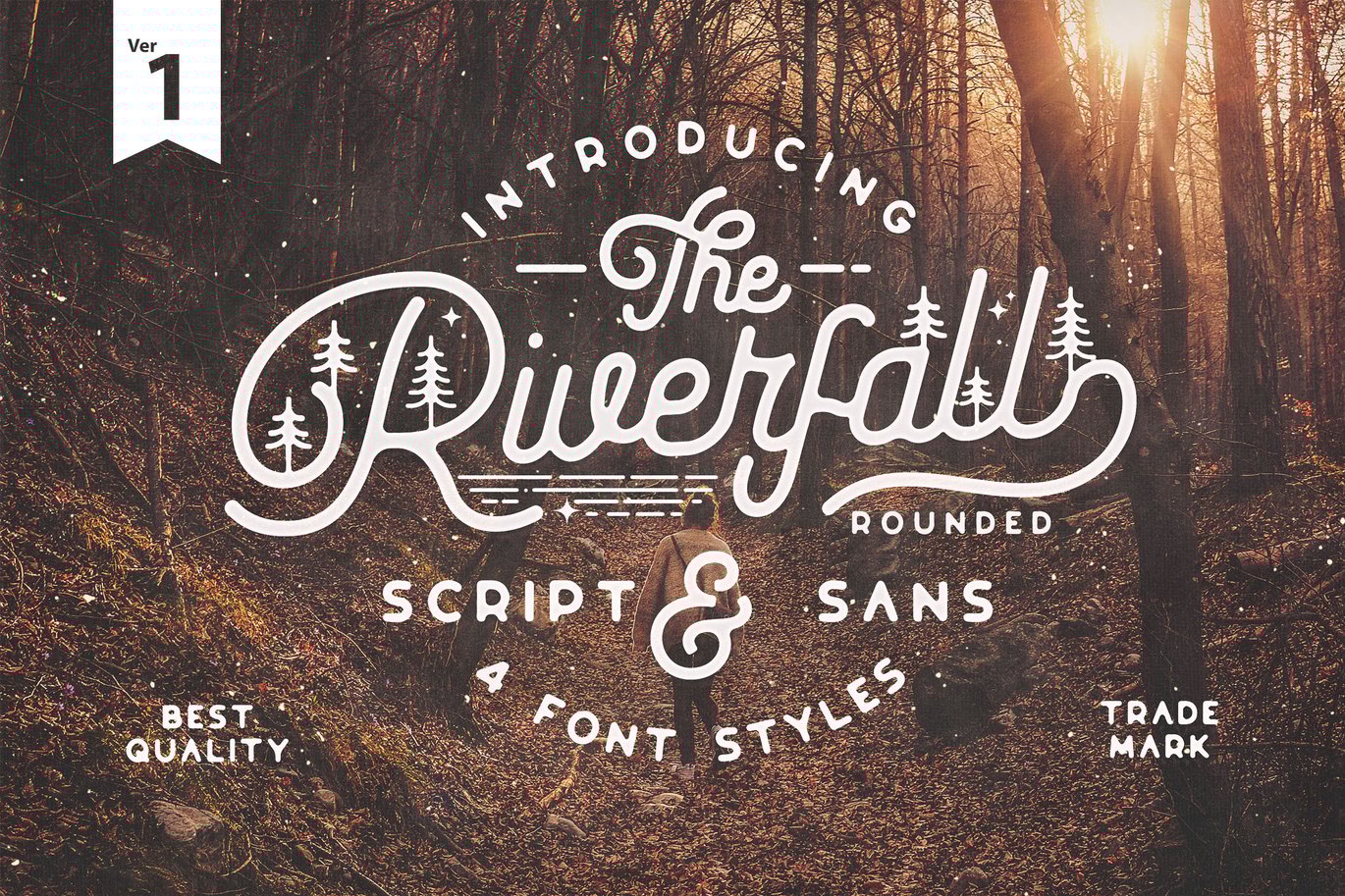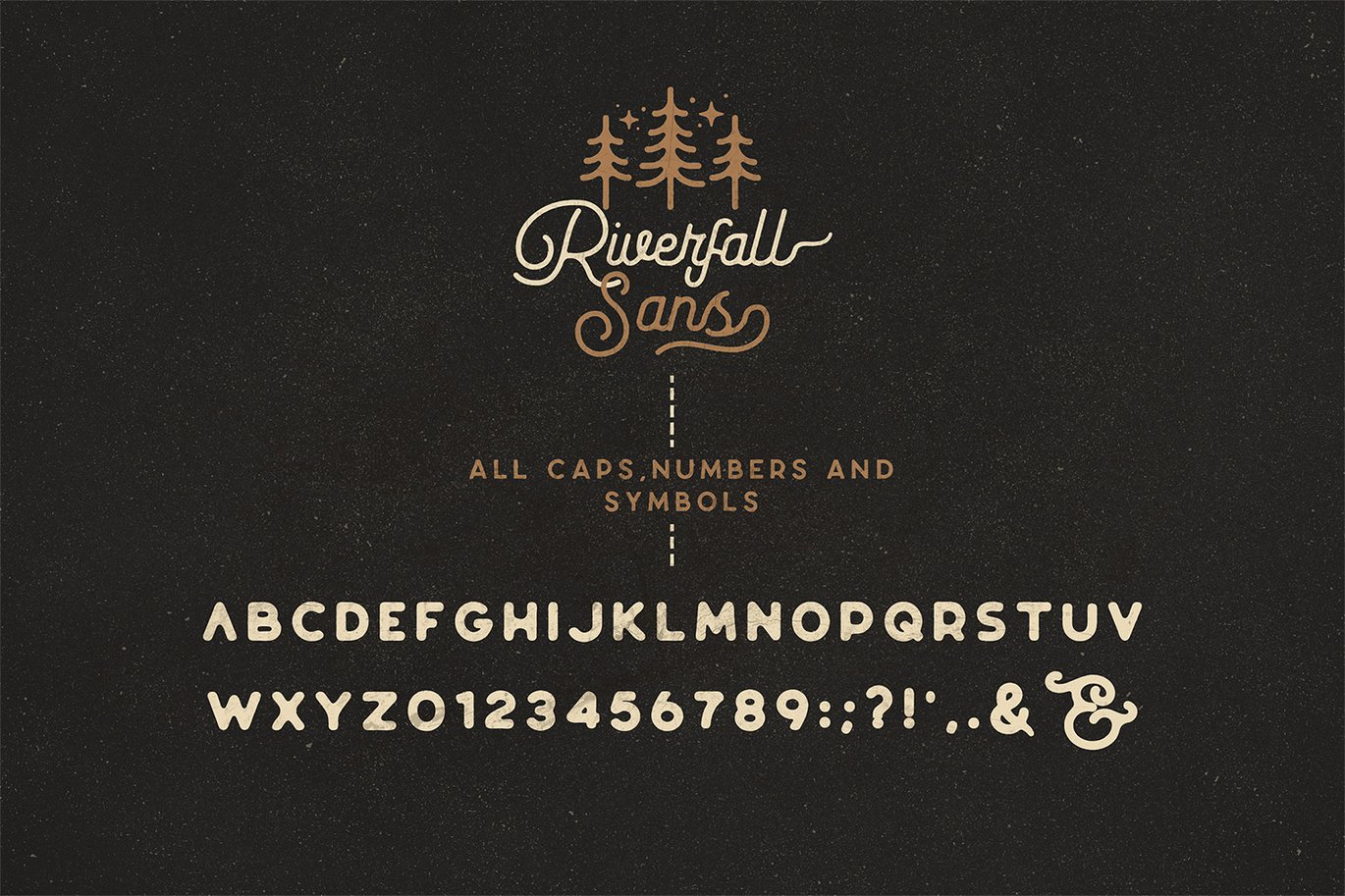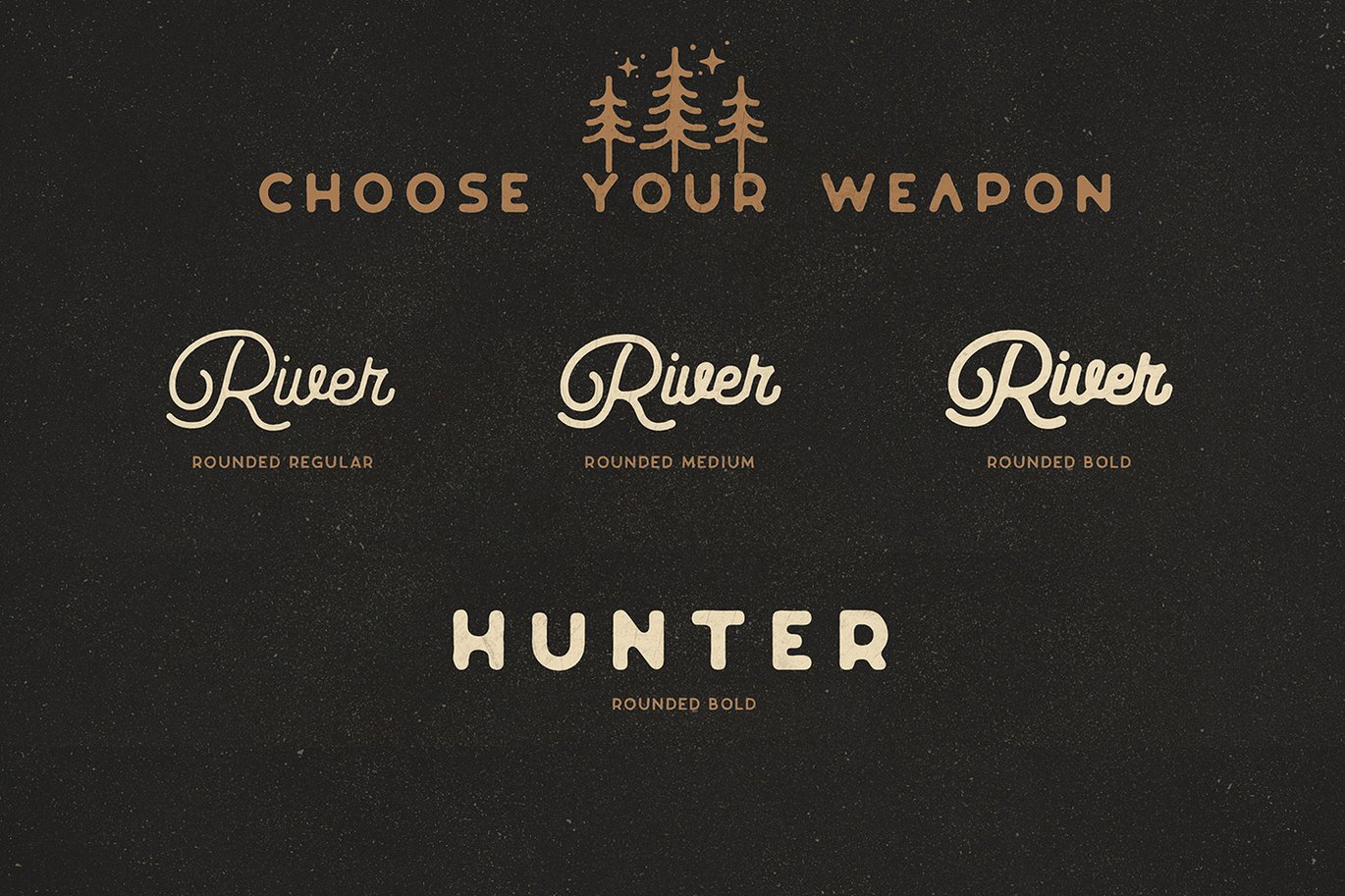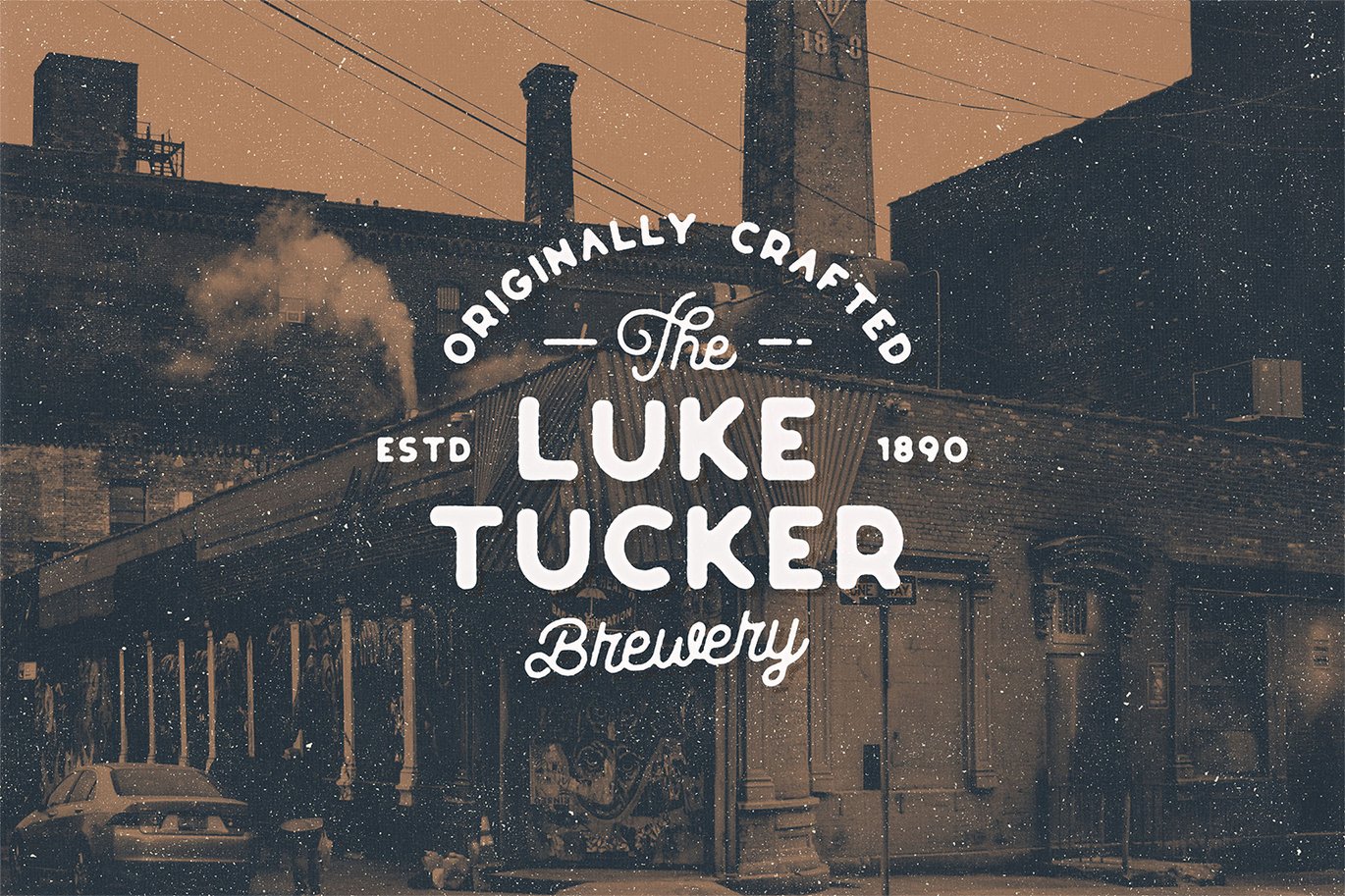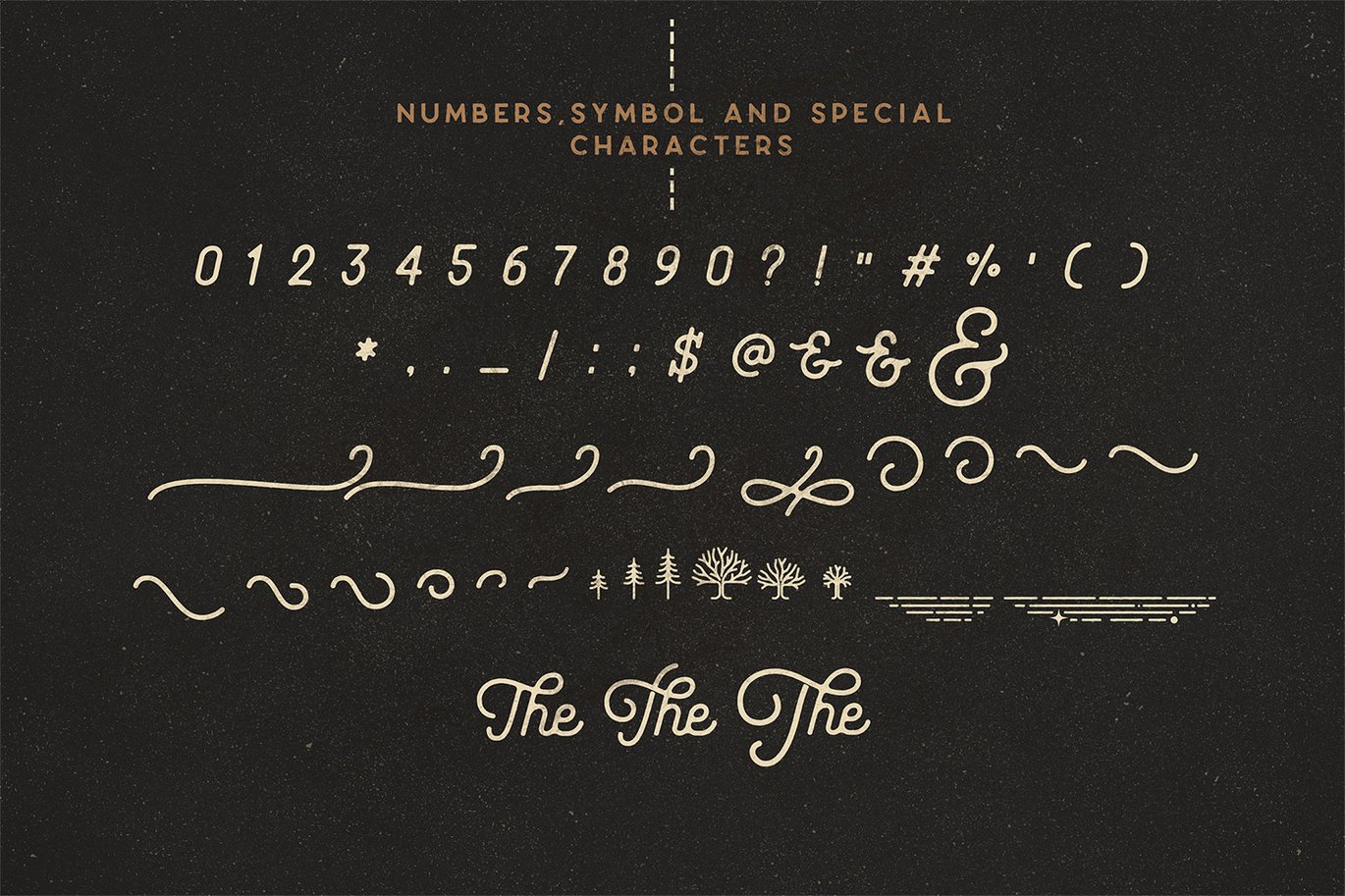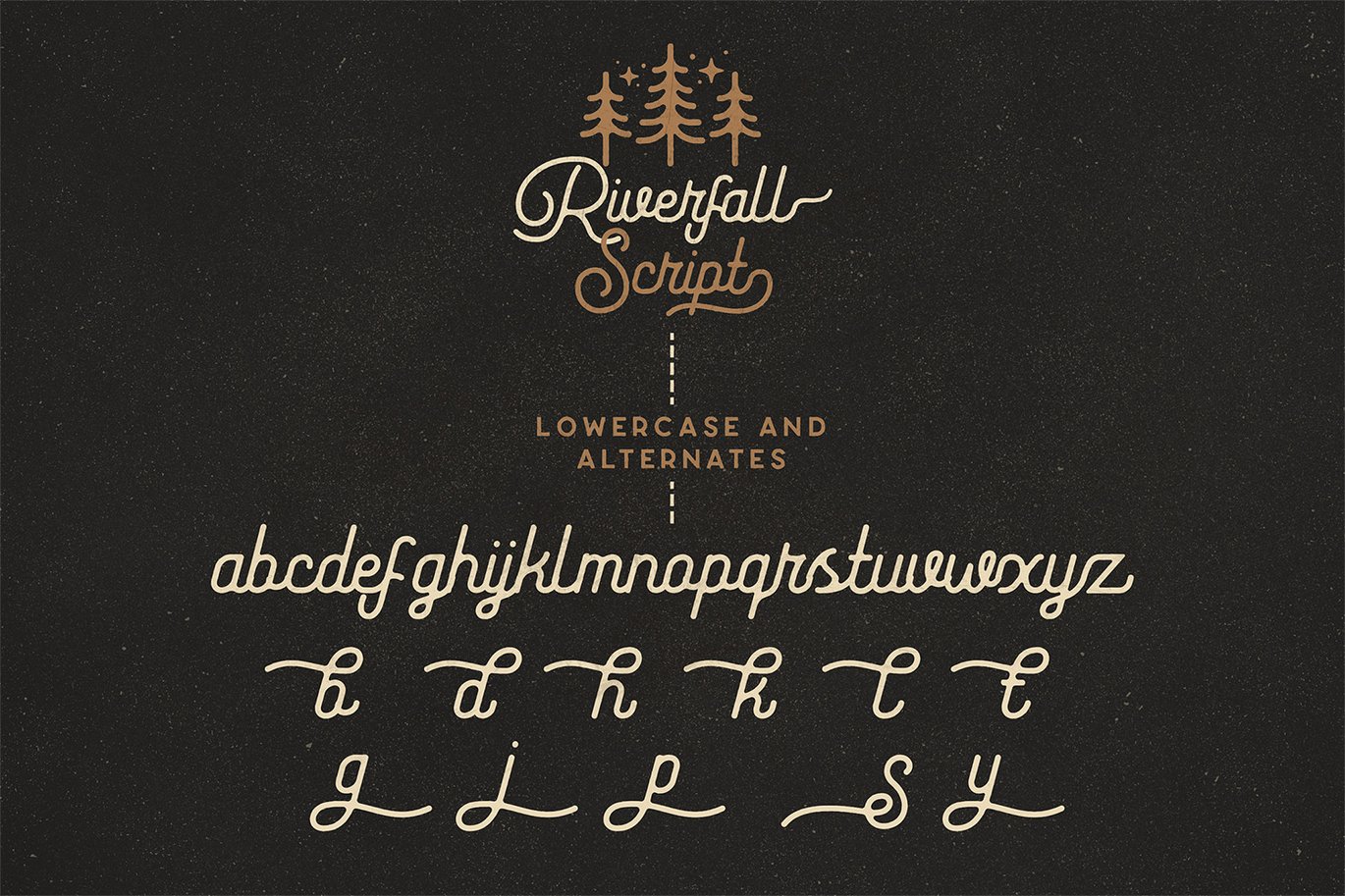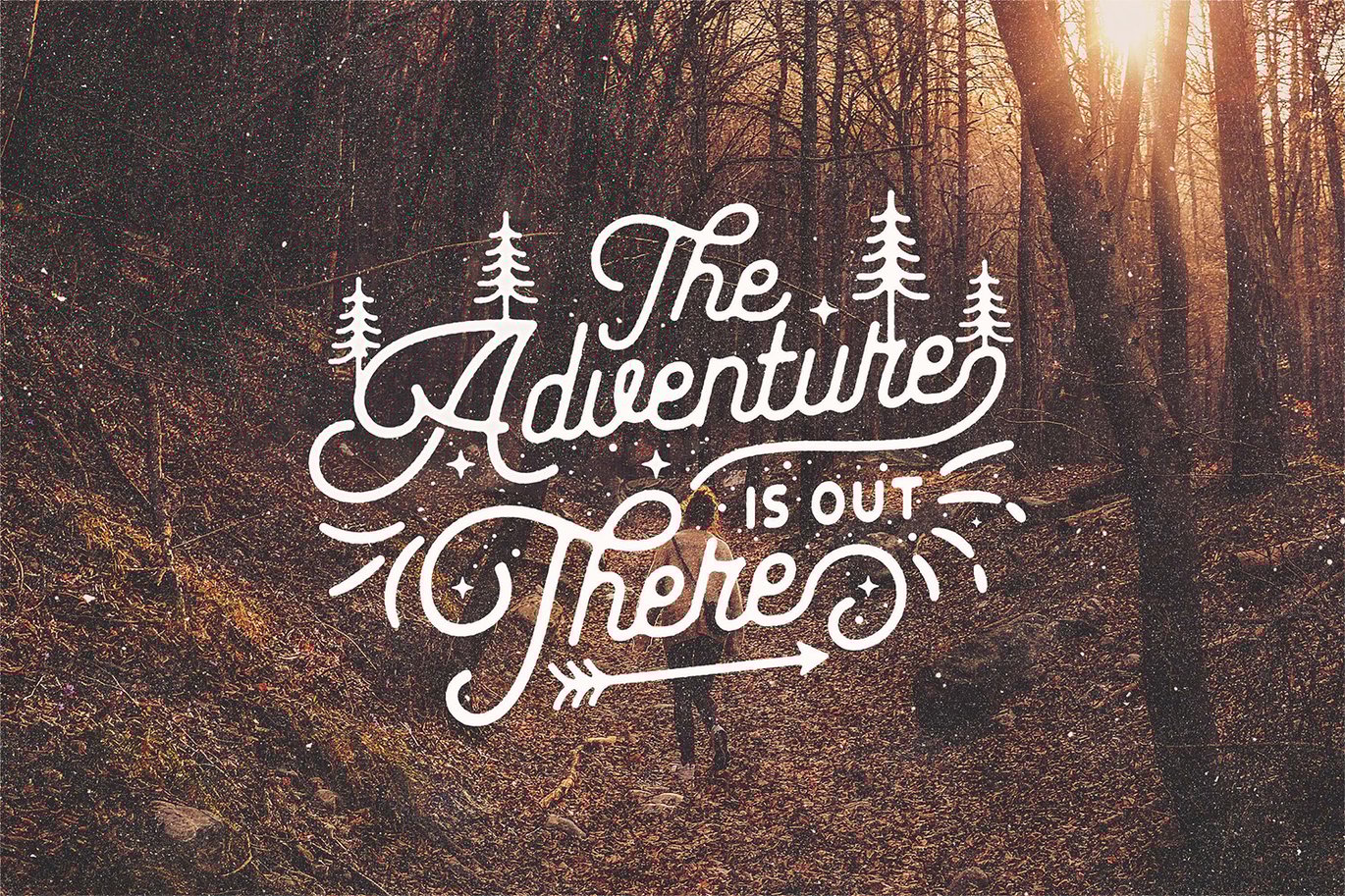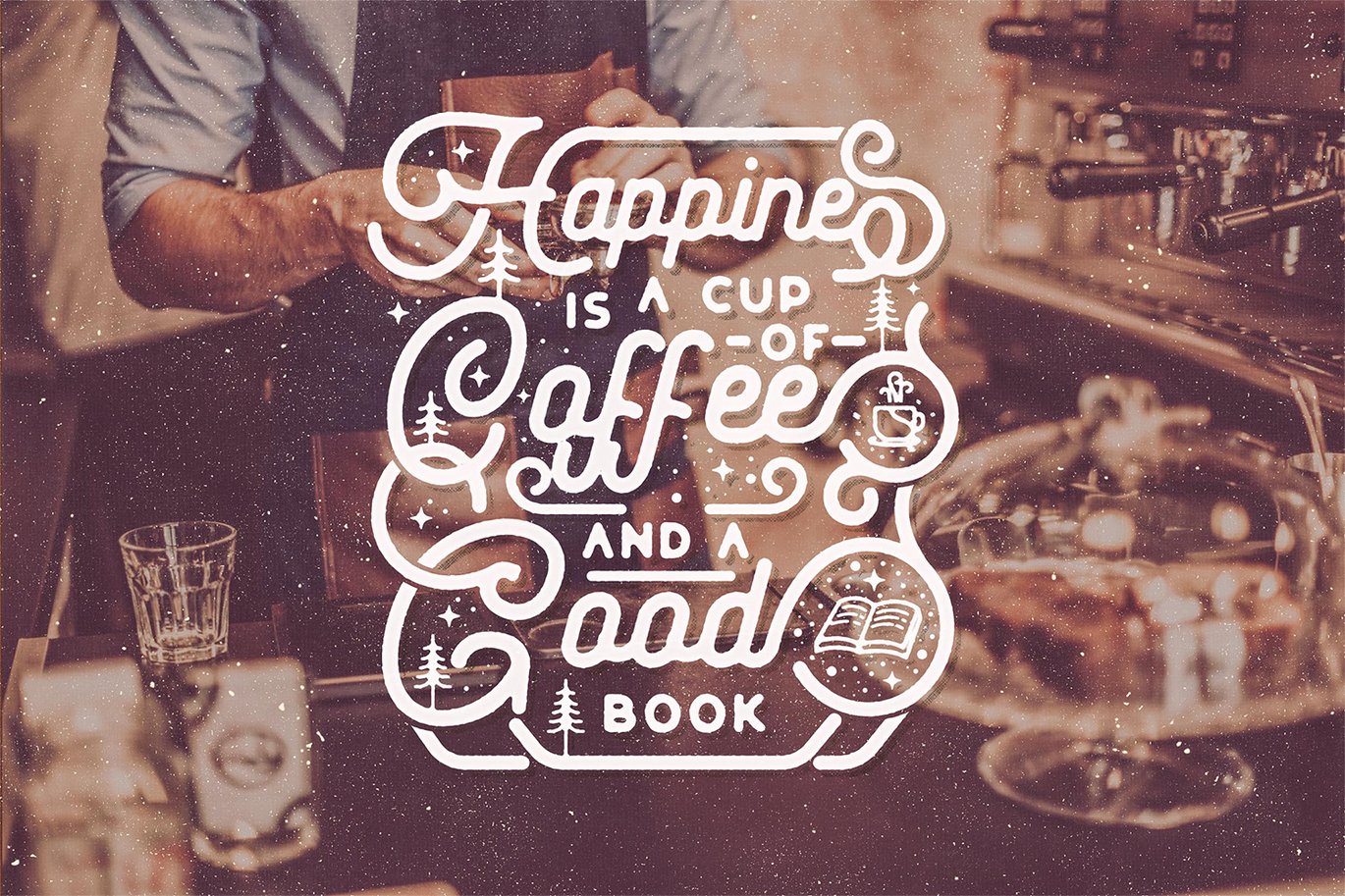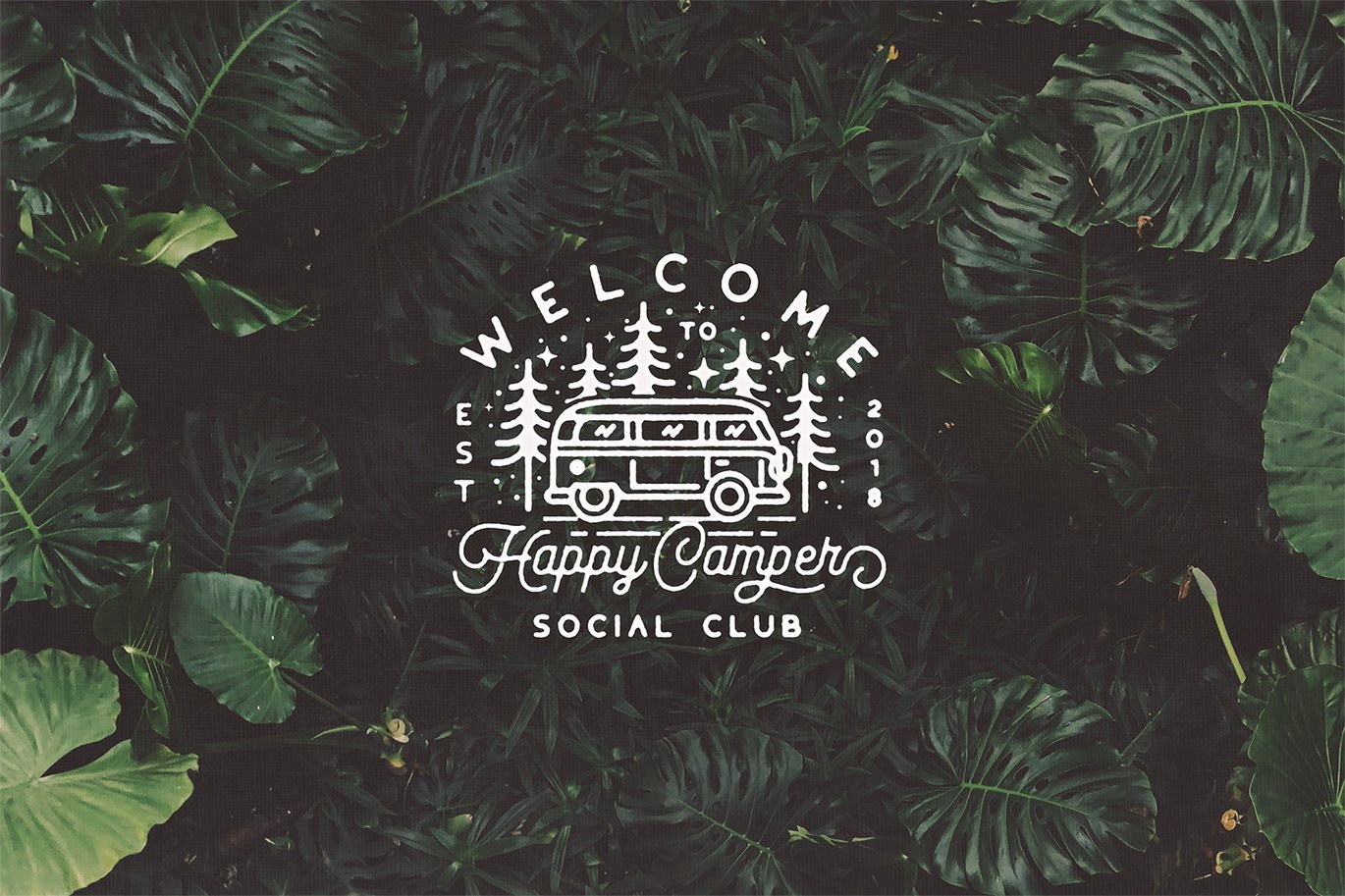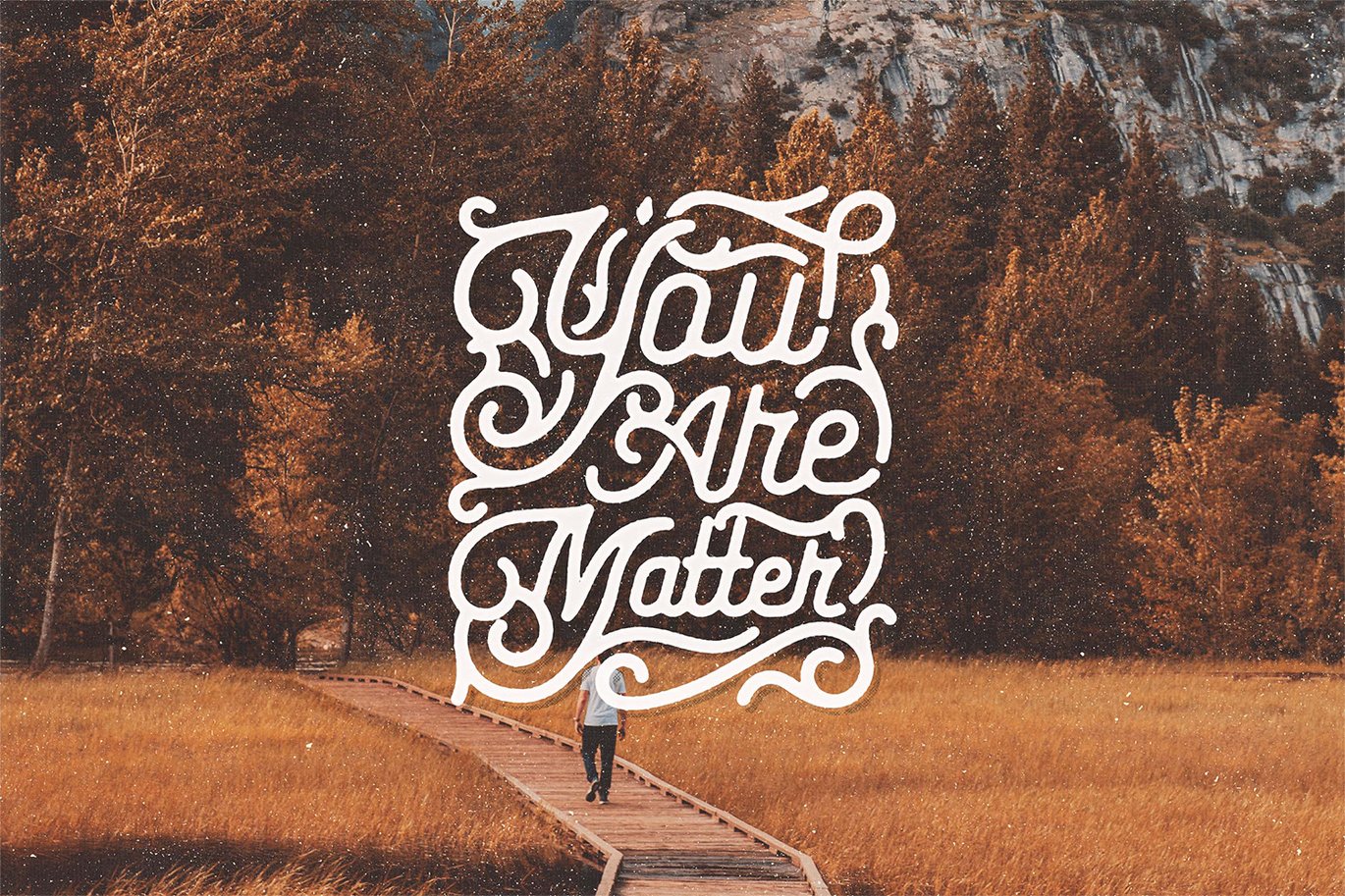
Riverfall Rounded Script and Sans 4 Typeface Ver.1
The Riverfall Rounded is vintage soft Script and sans serif font with 4 with 2 different style ‘script and sans. Also with beautiful alternates, Swashes. Perfect fair of sans and script font for retro vintage styles. Made carefully to create perfect suitable for each of your projects, great for Logotype, Branding Design, Logo Design, Digital Lettering Arts, T-Shirt/Apparel, Poster, Magazine, Signs, Advertising Design, and any vintage design needs.
- 4 Weight font and Styles
- Script Rounded Regular, Medium, Bold, Sans Bold
- Uppercase,numeral,punctuation & Symbol
- Stylistic Alternates, and swashes